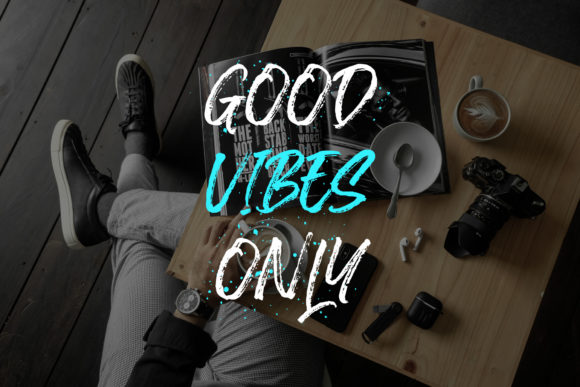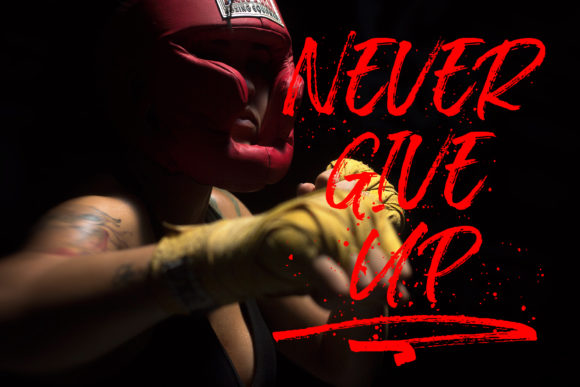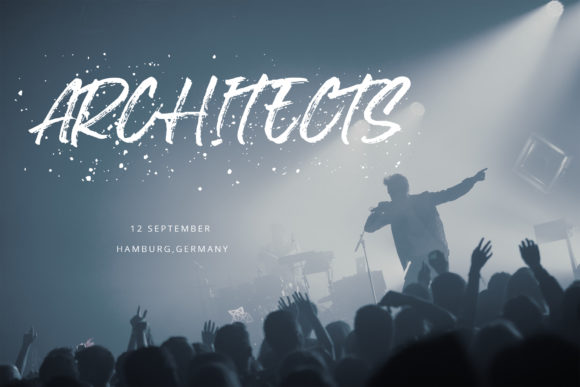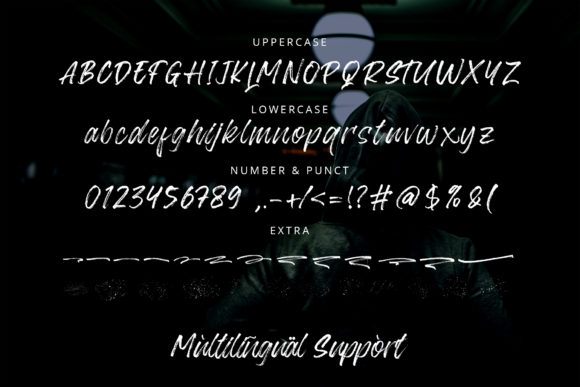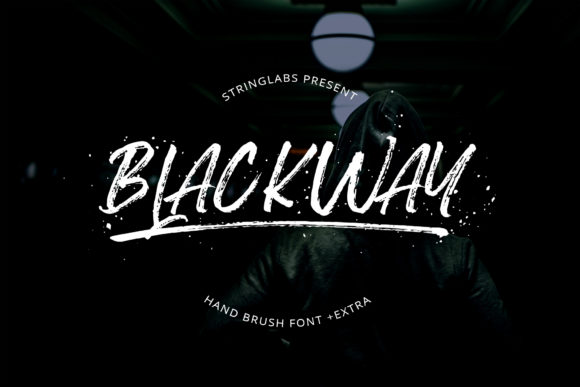
Discover the Authentic Charm of Blackway Font
Are you tired of using the same old fonts in your designs? Look no further than Blackway Font, a raw and natural hand-drawn display font that radiates authenticity. With its modern charm, Blackway Font is sure to capture the attention of designers and crafters alike. In this article, we’ll dive into the unique features of Blackway Font and explore how it can elevate your designs.
The Story Behind Blackway Font
Blackway Font is a hand-drawn display font that boasts a unique, organic feel. Its creator aimed to craft a font that exudes a sense of rawness and naturalness, making it perfect for designers who want to add a touch of authenticity to their work. The font’s modern charm is undeniable, making it an excellent choice for a wide range of design projects, from branding and advertising to packaging and more.
Key Features of Blackway Font
So, what sets Blackway Font apart from other fonts? Here are some of its key features:
• Hand-drawn with love: Blackway Font is meticulously crafted by hand, giving it a unique, human touch that’s hard to replicate with digital fonts.
• Raw and natural: The font’s organic feel makes it perfect for designs that require a touch of authenticity and ruggedness.
• Modern charm: Blackway Font’s sleek lines and contemporary style ensure it looks modern and fresh, making it ideal for designs that require a bit of sophistication.
• Highly versatile: Whether you’re working on a branding project, creating a poster, or designing a website, Blackway Font can be used in a variety of contexts.
Why Designers and Crafters Love Blackway Font
Designers and crafters are always on the lookout for fonts that can help their work stand out. Here are some reasons why Blackway Font has become a favorite among creatives:
• Uniqueness: Blackway Font’s hand-drawn nature ensures that it’s one-of-a-kind, making it an excellent choice for designers who want to create distinctive work.
• Emotional connection: The font’s raw, natural feel helps create an emotional connection with the audience, making it perfect for designs that require a personal touch.
• Flexibility: Blackway Font can be used in a range of design projects, from digital to print, and can be easily paired with other fonts to create a unique visual identity.
Tips for Using Blackway Font Effectively
To get the most out of Blackway Font, here are some tips to keep in mind:
• Use it as a headline font: Blackway Font’s bold, eye-catching style makes it perfect for headlines and titles.
• Pair it with complementary fonts: Experiment with pairing Blackway Font with other fonts to create a unique visual identity.
• Experiment with colors and textures: Blackway Font looks great in a range of colors and textures, so don’t be afraid to get creative.
Blackway Font is a raw and natural hand-drawn display font that radiates authenticity. Its modern charm and versatility make it an excellent choice for designers and crafters looking to add a touch of uniqueness to their work. With its emotional connection and flexibility, Blackway Font is sure to become a go-to font in your design arsenal. So why wait? Fall in love with Blackway Font and take your designs to the next level.